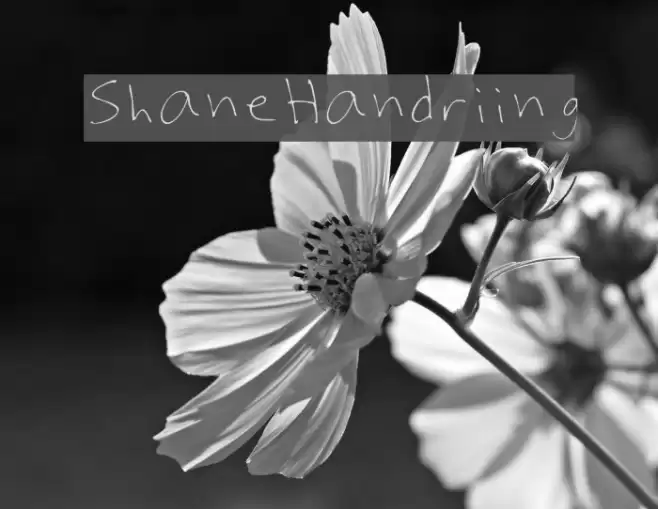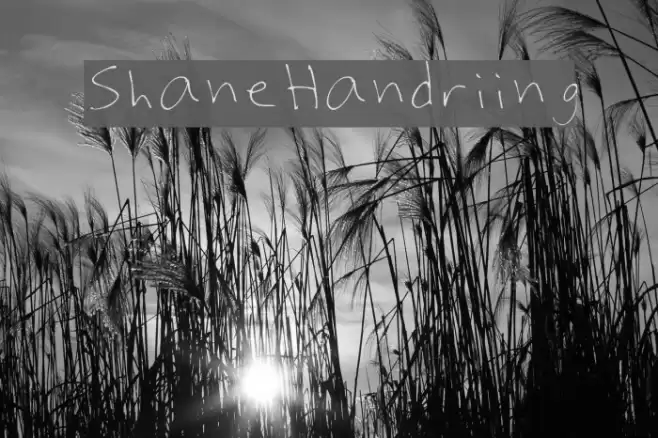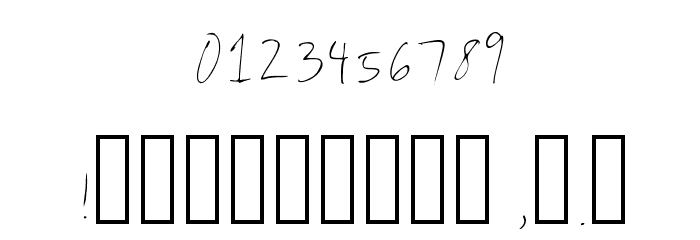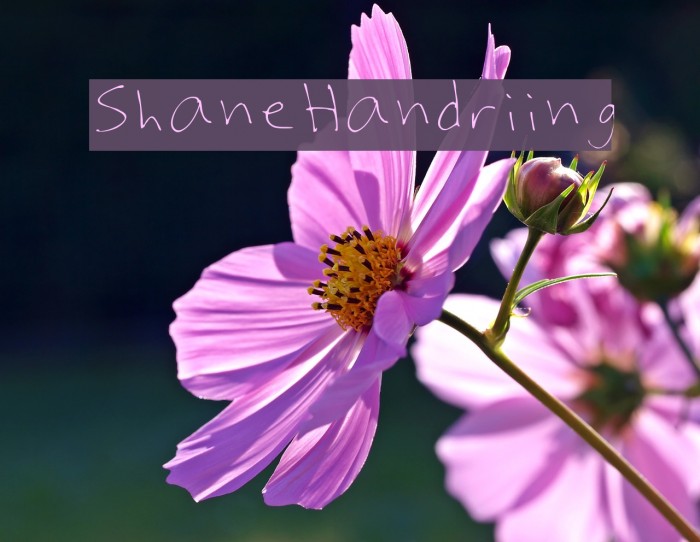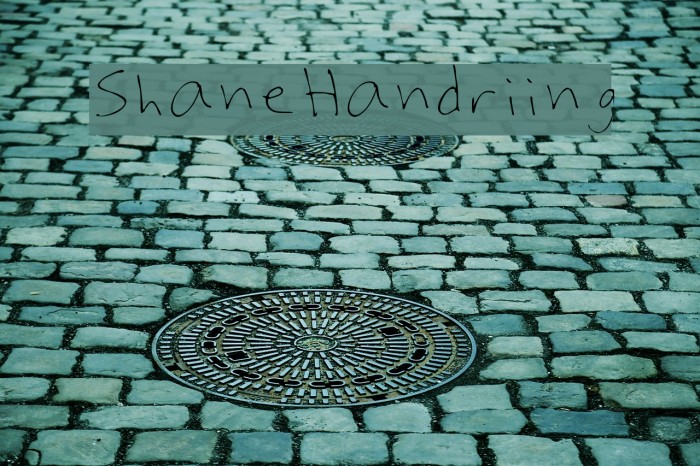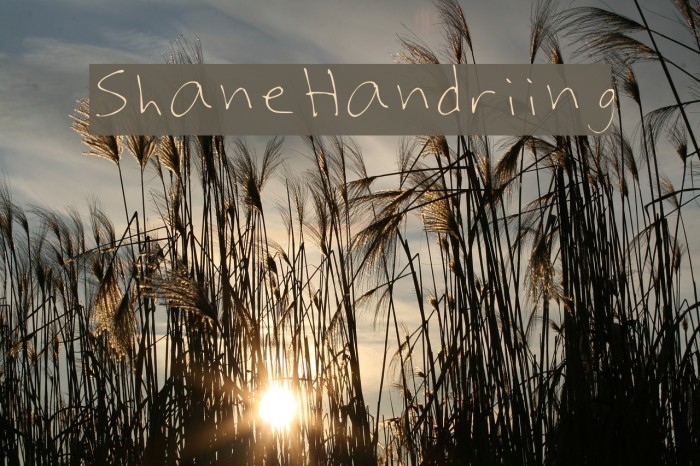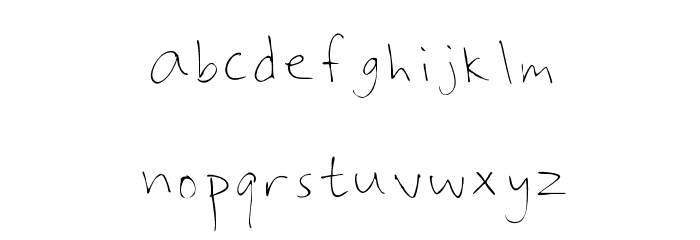
Shaynes_Handwriting Font
Shaynes_Handwriting Description
This font features a casual, handwritten style that mimics natural handwriting with a playful and informal touch. The letters are slightly irregular, giving it an authentic and personal feel. The uppercase and lowercase letters maintain a consistent flow, while the numbers and special characters complement the overall style. The strokes are thin and vary slightly in width, adding to the handwritten effect. This font is ideal for projects that require a personal, friendly, and approachable aesthetic.
A casual, handwritten font with a playful and informal style from Handwritten fonts.
- Proposed Projects: Ideal for personal notes, invitations, greeting cards, and casual branding projects.
- Overall Style: Casual, Playful
- Use Case: Invitations, Greeting cards, Personal notes